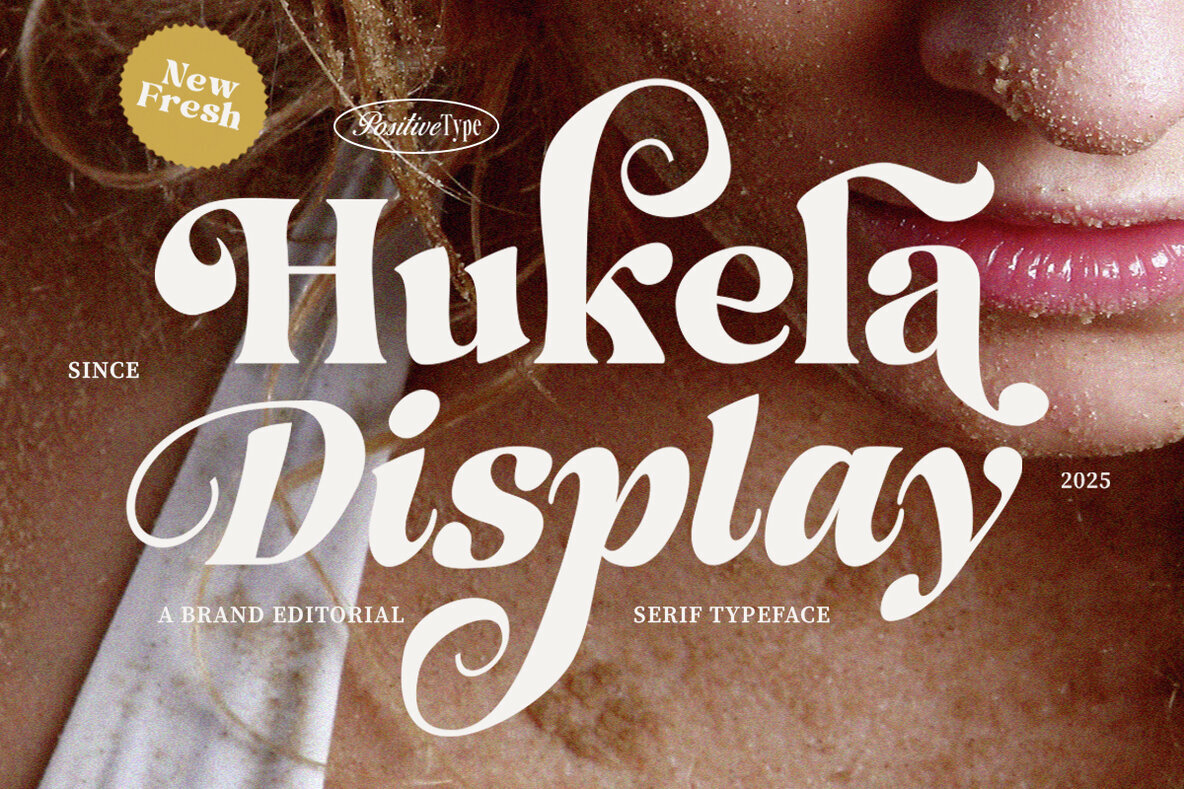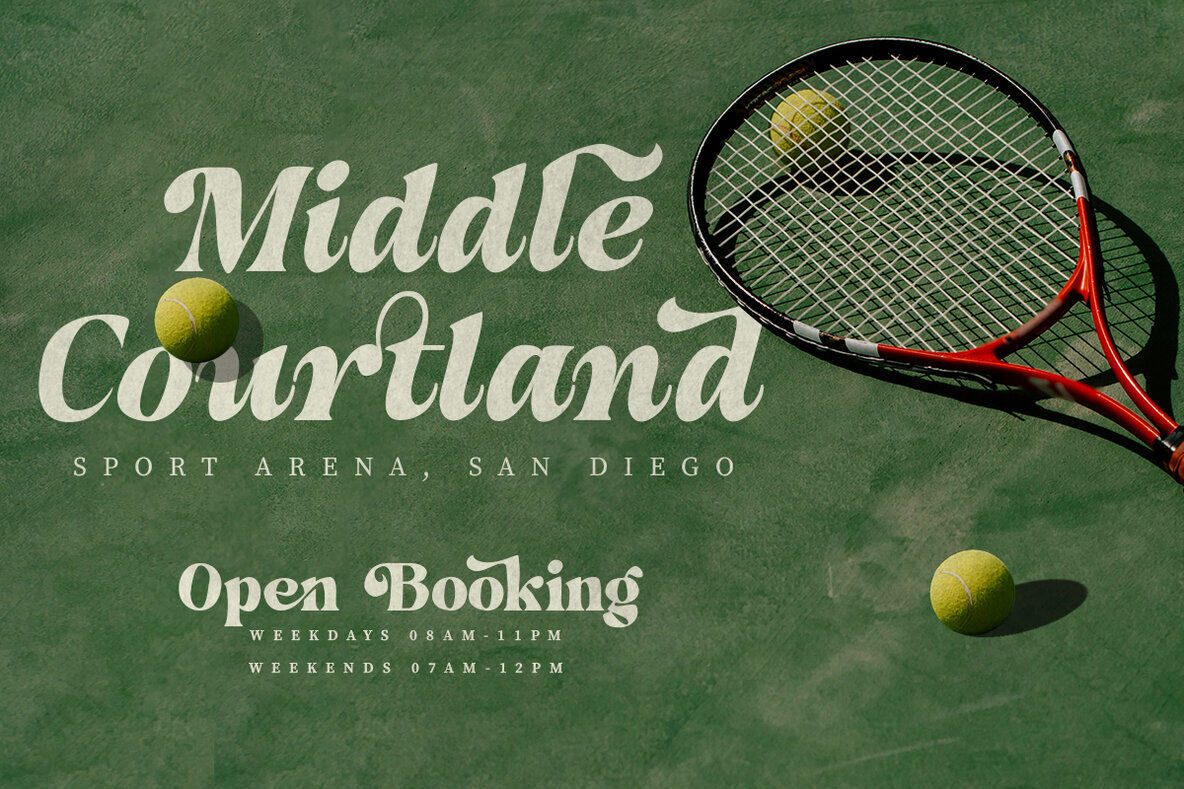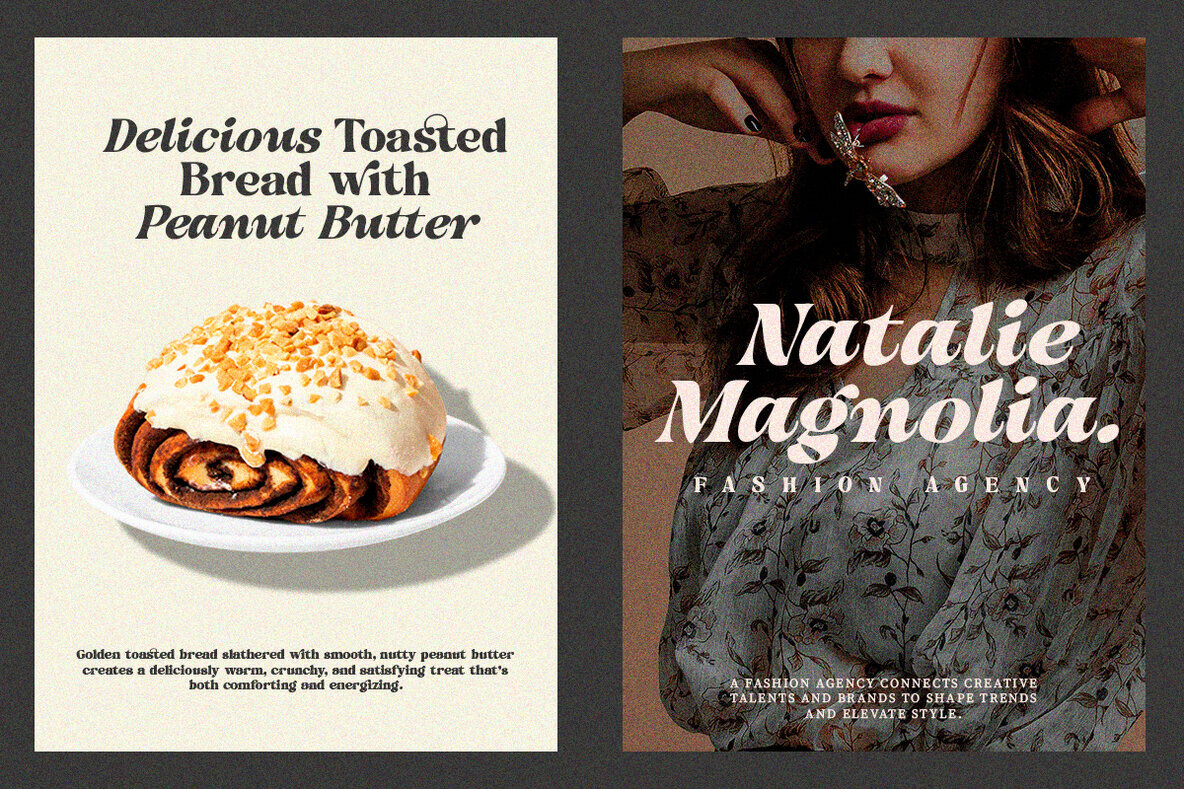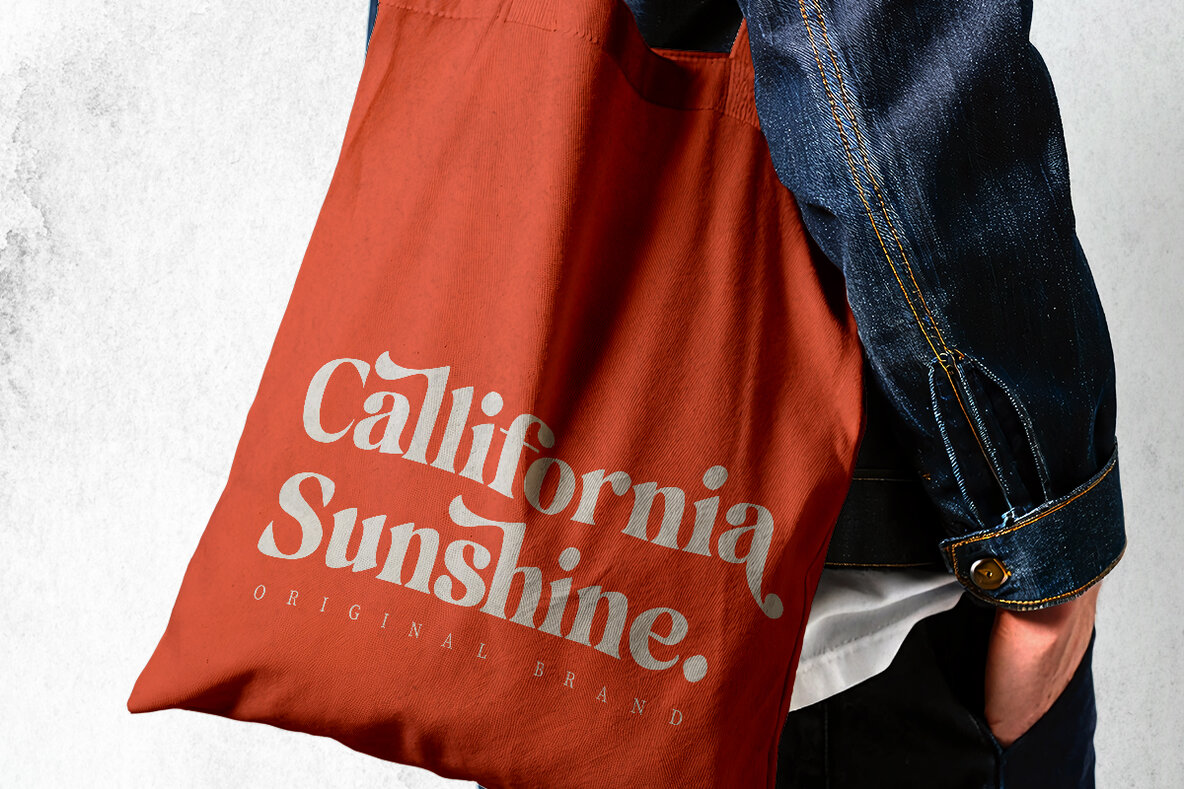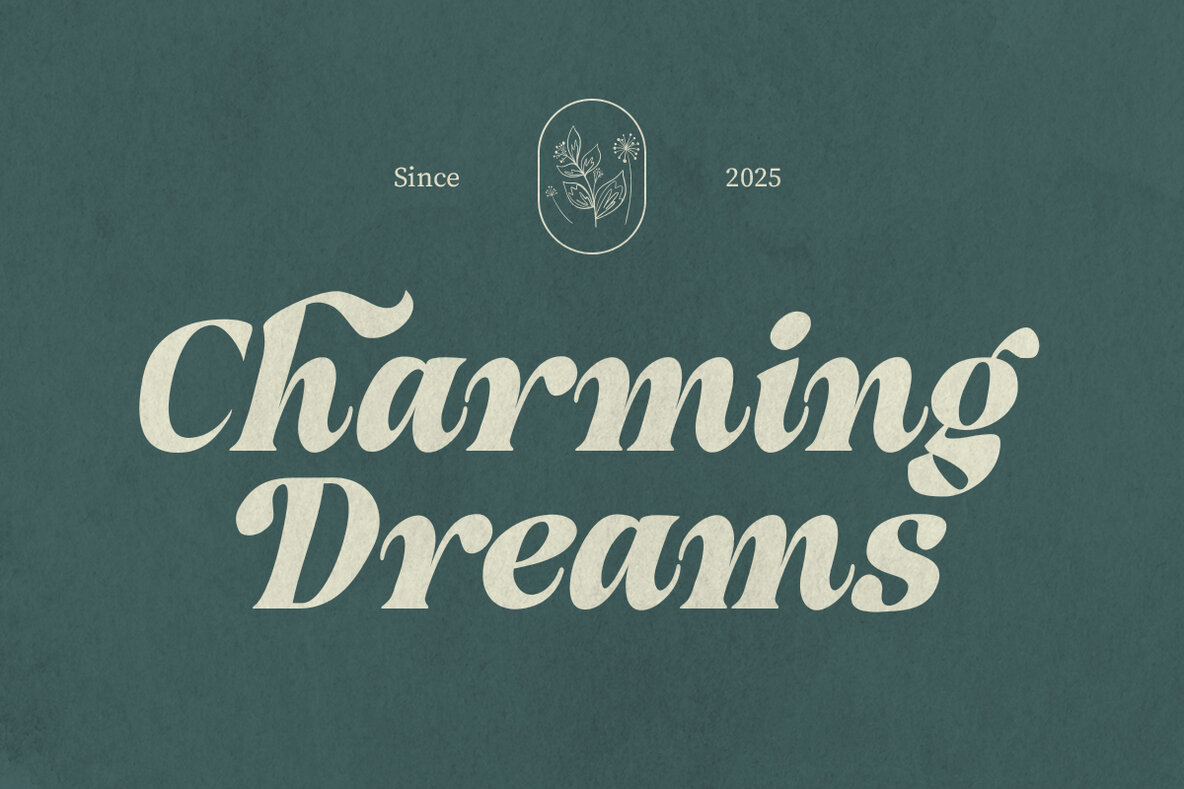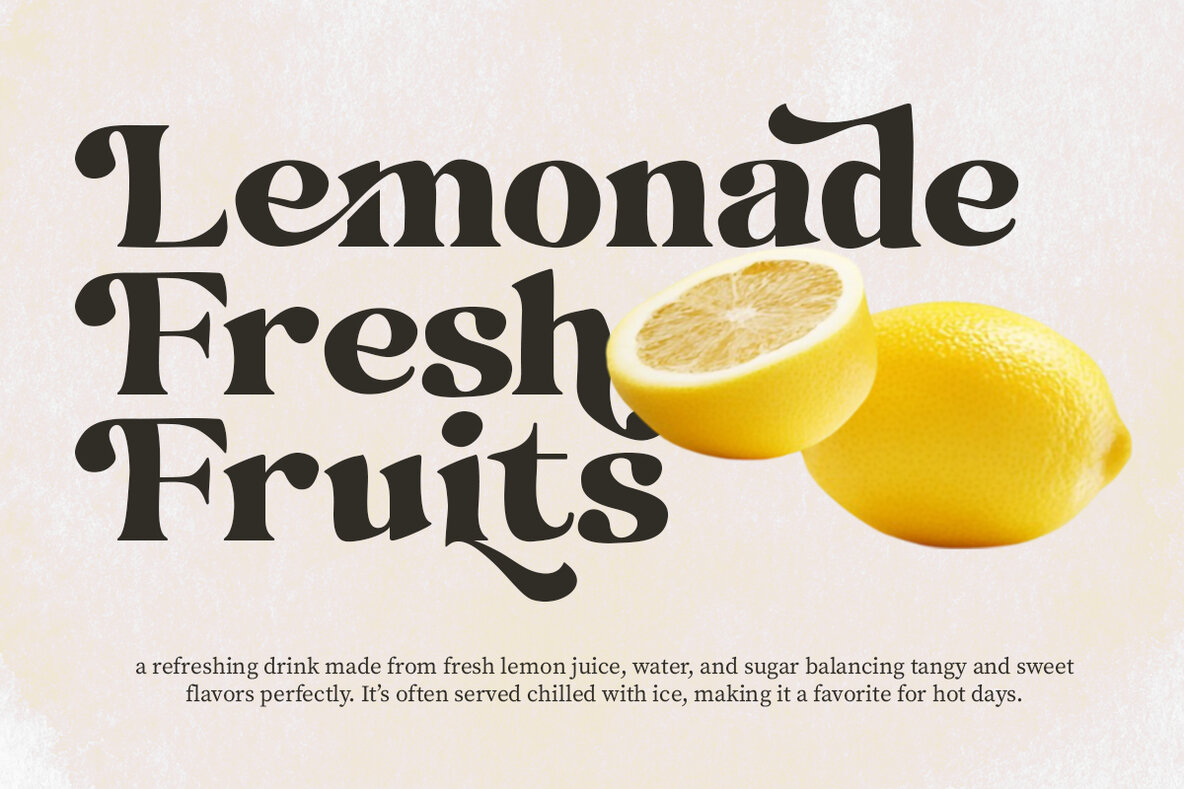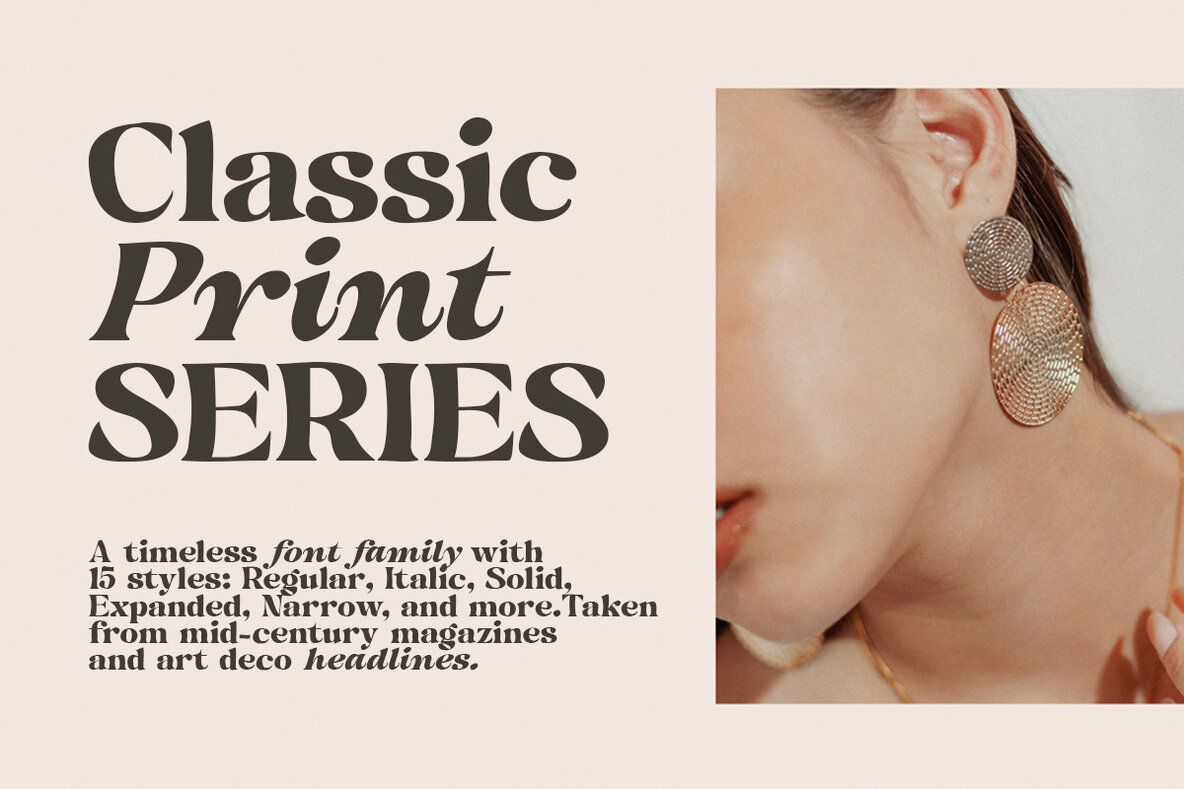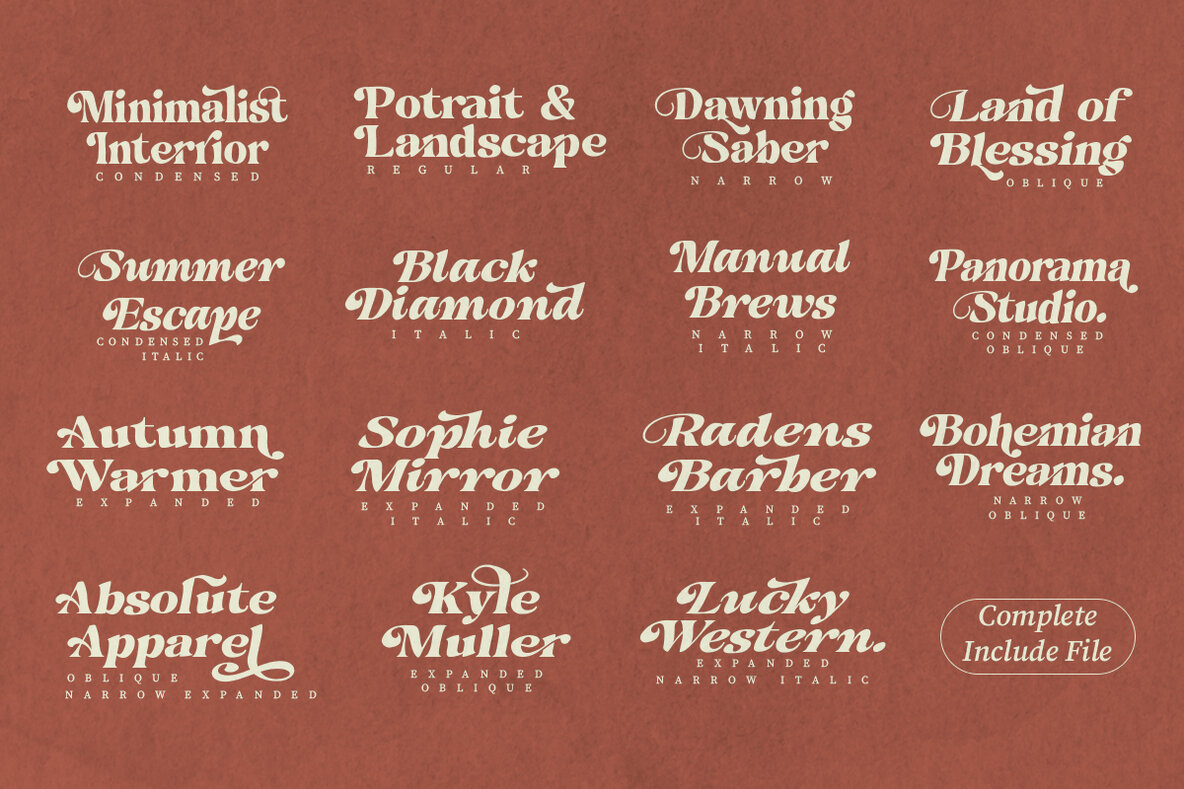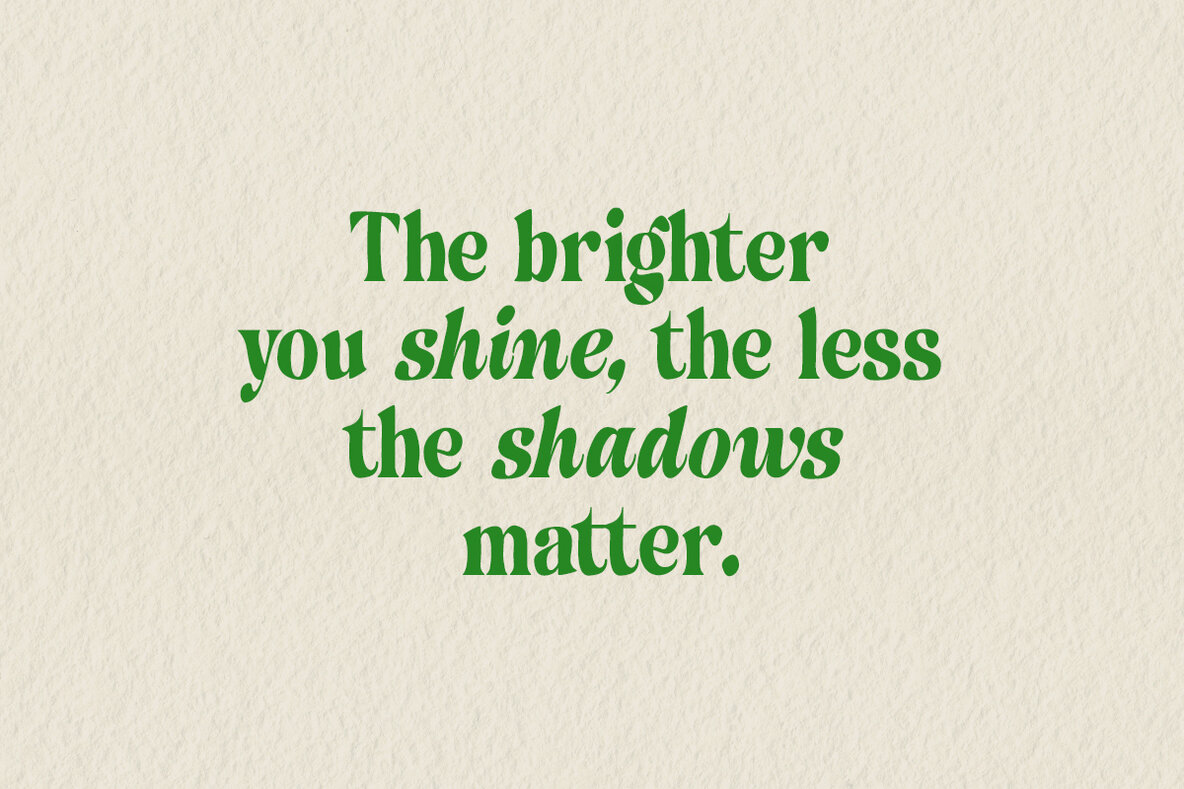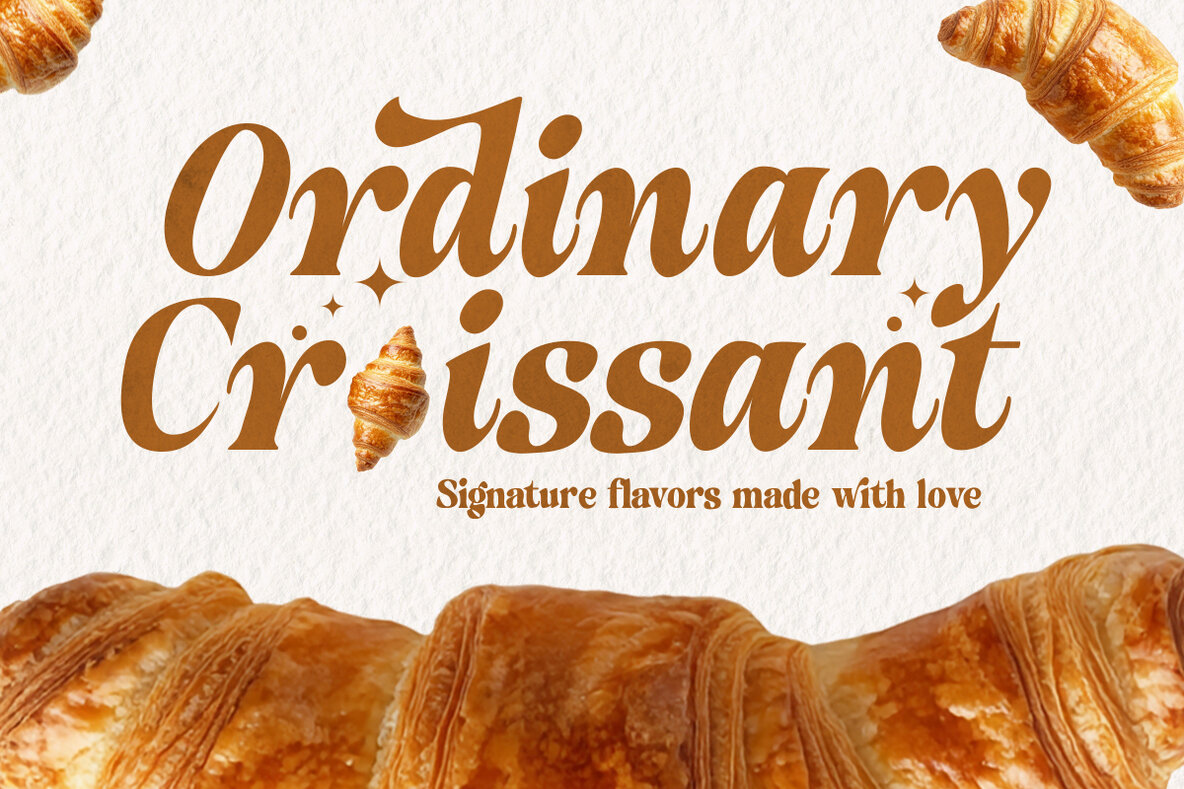
Hukela Font
Hukela Display is an expressive serif typeface ideal for brands seeking to make a statement. With elegant curves, refined contrast, and a striking editorial flair, Hukela imbues sophistication and artistic character into any project. It excels in magazines, branding, packaging, fashion editorials, and headlines that require attention. This typeface merges classical serif elegance with modern sensibility, offering high-contrast strokes and unique terminal shapes. Such features grant a timeless yet contemporary voice.Hukela Display: A Bold Serif for Editorial Excellence